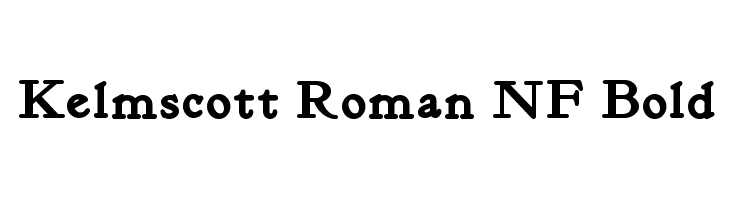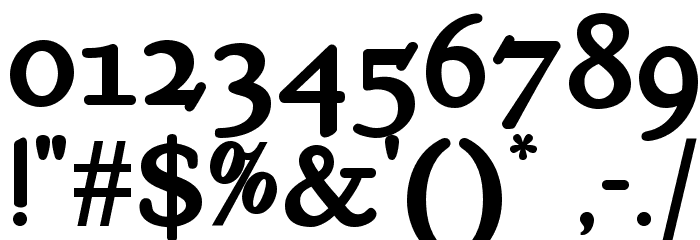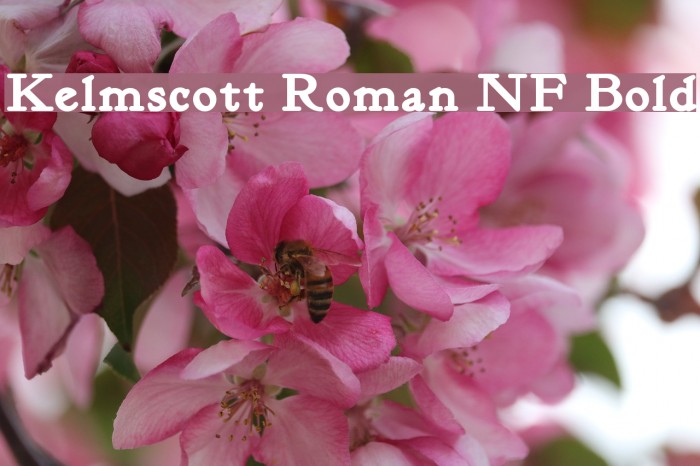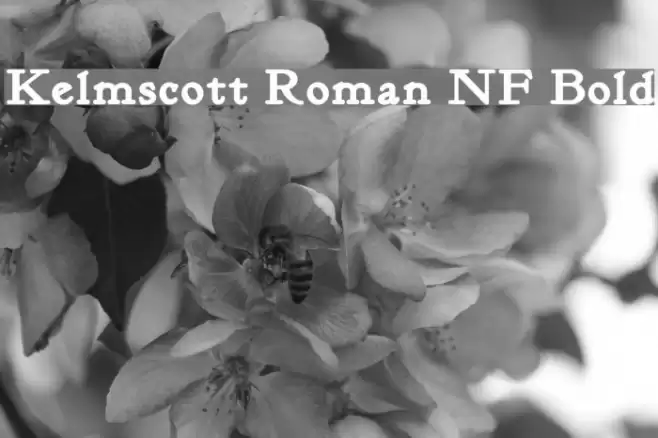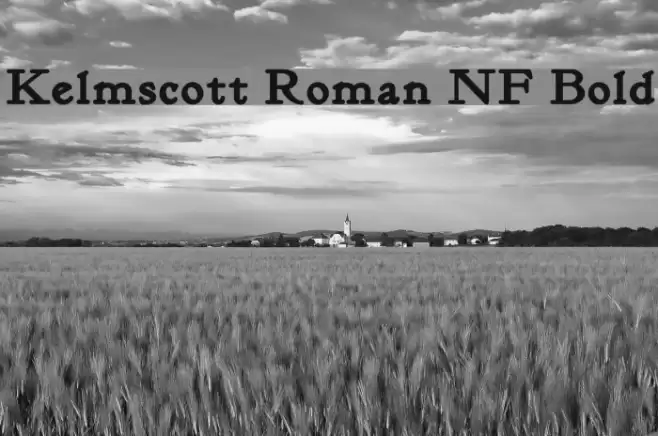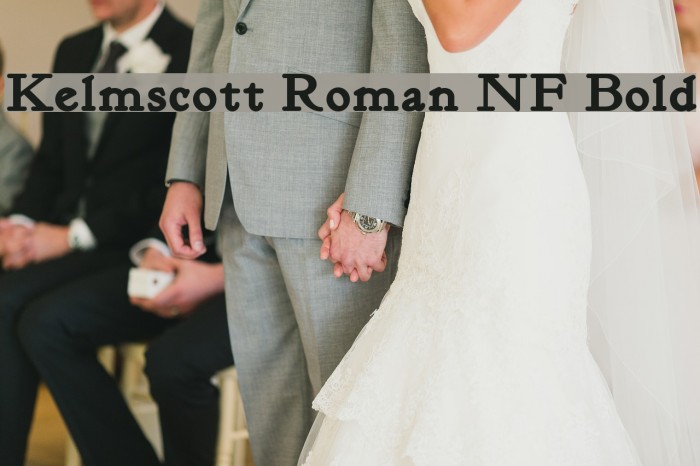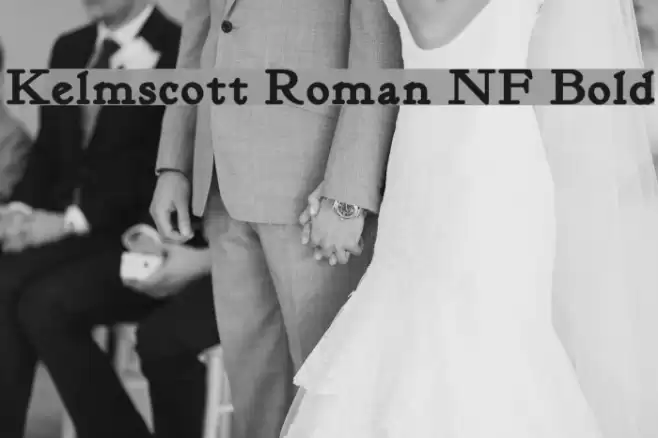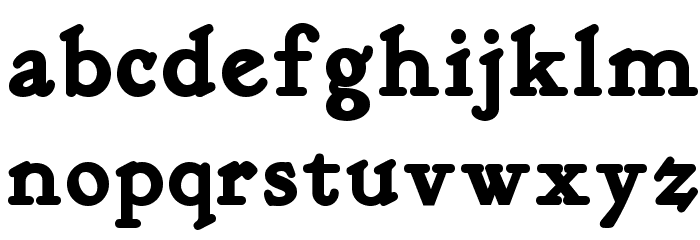
Kelmscott Roman NF Bold Font
Kelmscott Roman NF Bold Description
This font exhibits a classic and bold serif style, reminiscent of traditional typesetting with a touch of modern flair. The characters are well-defined with strong, thick strokes, giving them a robust appearance. The serifs are pronounced, adding a sense of elegance and formality. The uppercase letters are tall and commanding, while the lowercase letters maintain a consistent and harmonious flow. The numerals are clear and distinct, ensuring readability. Special characters are crafted with the same attention to detail, providing a cohesive look across all glyphs.
| Overall Style | Classic |
| Use Case | Headlines, Logos, Editorial design |
| Proposed Projects | Ideal for book covers, formal invitations, branding materials, and editorial design. |